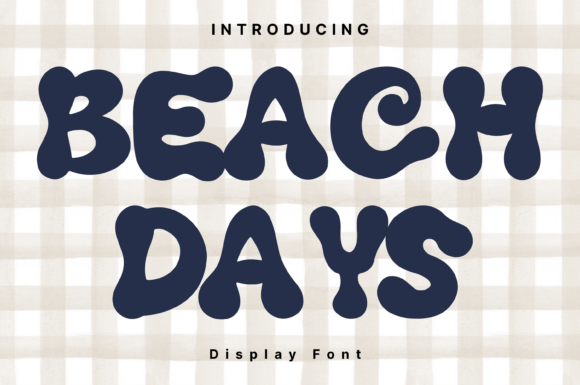
Summer in a Font: Uncovering the Magic of Beachdays Font
Who doesn’t love the feeling of walking along a sun-kissed beach, the sound of waves gently lapping at the shore, and the smell of saltwater and coconut sunscreen wafting through the air? For designers, capturing the essence of a carefree summer day can be the perfect inspiration for a project. And that’s exactly what Beachdays Font aims to do – distill the joy and playfulness of seaside adventures into a font that’s as vibrant as a beach umbrella on a sunny day.
Beachdays Font is a charming display font designed to evoke the feeling of summertime fun. Its rounded, organic shapes evoke the rolling waves and smooth pebbles found on a beach, making it the perfect fit for projects that require a lighthearted, sunny personality. Whether you’re designing event posters, children’s book titles, or social media graphics, Beachdays Font brings a sense of carefree joy to any project, making it a valuable addition to any designer’s toolkit.
• Unique Characteristics: The Beachdays Font features a unique, hand-drawn design with a mix of modern and vintage elements, making it perfect for creating eye-catching and memorable designs.
Designer Review: Beachdays Font
Beachdays Font is a charming, hand-drawn font that captures the essence of a carefree summer day. The playful design features wavy lines, rounded edges, and an overall relaxed feel. ✨ I love the unique character of this font, making it perfect for projects that require a touch of whimsy and fun.
• Unique, hand-drawn design
• Perfect for summer-themed projects, beach-inspired designs, or children’s materials
• Features wavy lines and rounded edges, adding to its playful character
• Available in various font styles, including bold and italic
While Beachdays Font excels at capturing a lighthearted atmosphere, there are some limitations to consider. ⚠️ The font may not be suitable for formal or professional projects, as its playful design may come across as unprofessional. Additionally, the font may not be as versatile as other fonts, making it less suitable for projects that require a more formal or serious tone.
Overall, I think Beachdays Font is a great addition to any designer’s toolkit, especially for projects that require a carefree and playful vibe. While it may not be perfect for every project, its unique character and charm make it a great choice for the right occasion.
Getting the Most Out of Beachdays Font
To get the most out of Beachdays Font, use it for designs that require a playful and carefree vibe. This font is perfect for:
• Summer-themed designs
• Beach and ocean-inspired graphics
• Children’s products and packaging
Some common use cases for Beachdays Font include:
• Restaurant menus and signage
• Beach-themed party invitations
• Summer-themed social media graphics